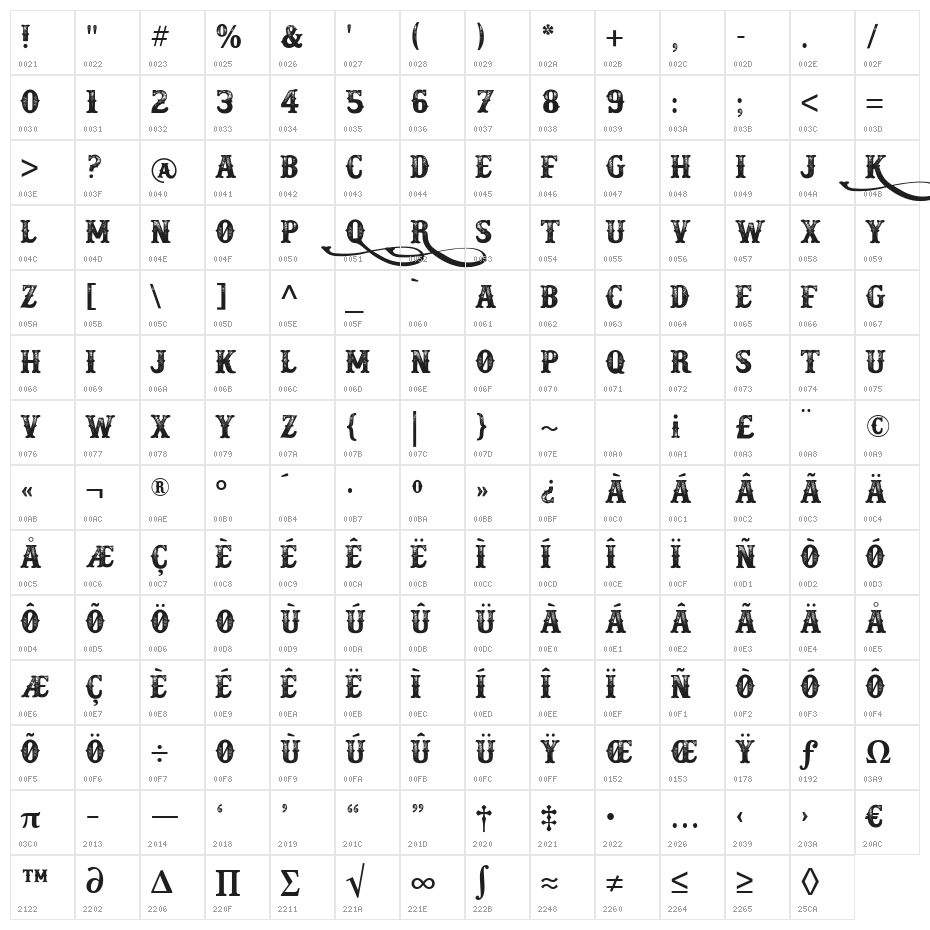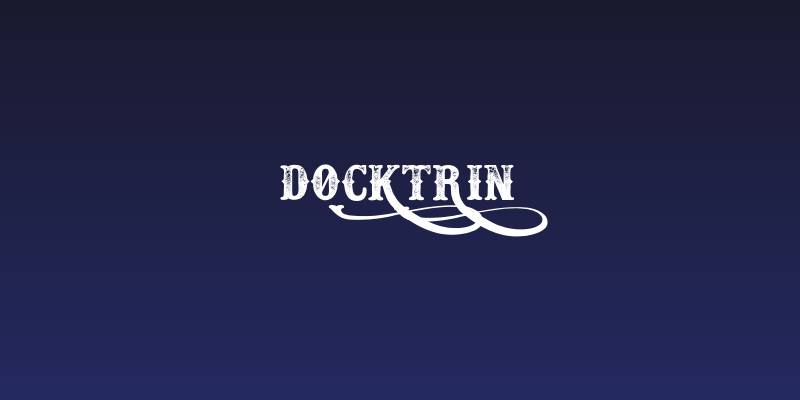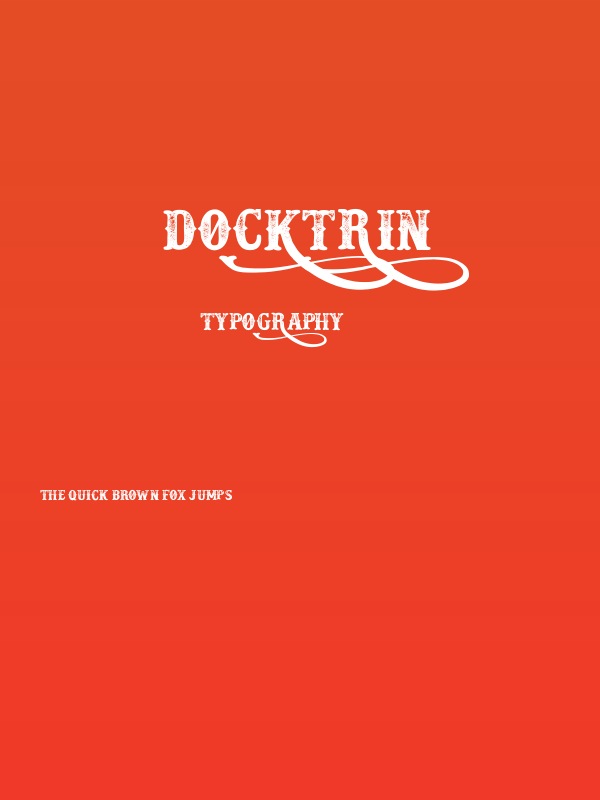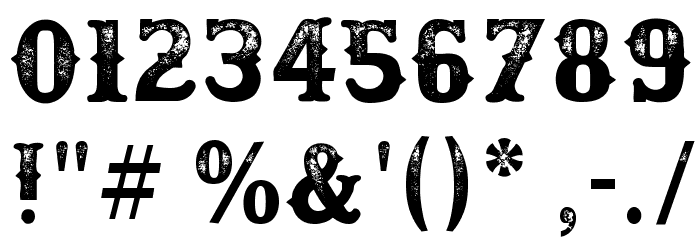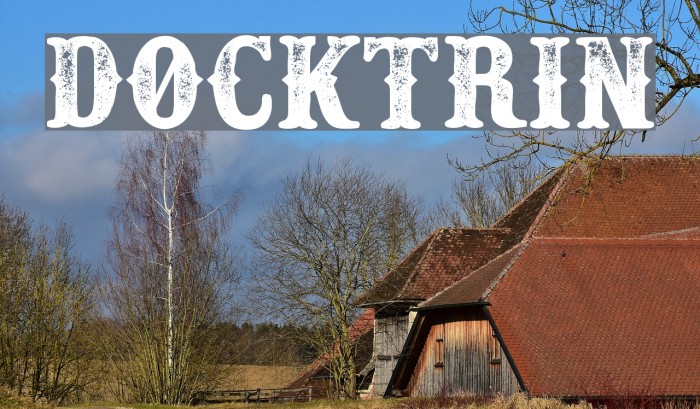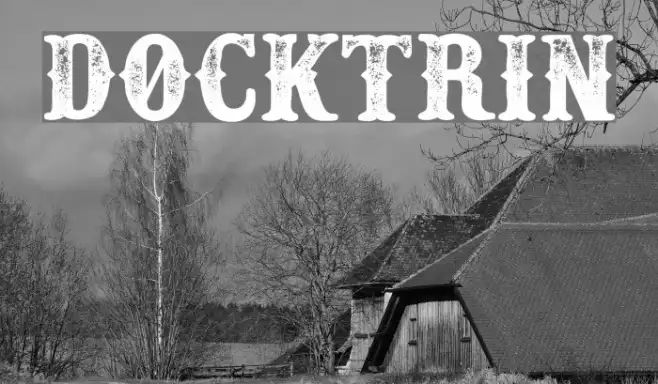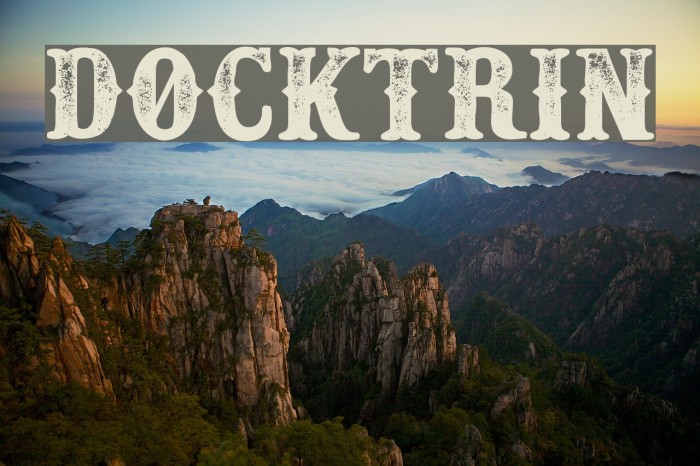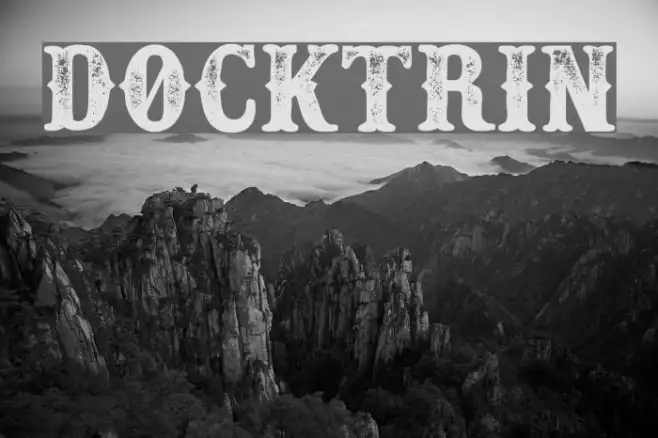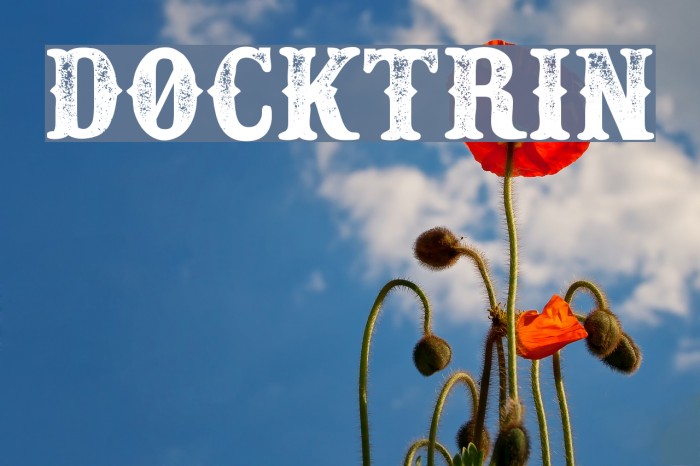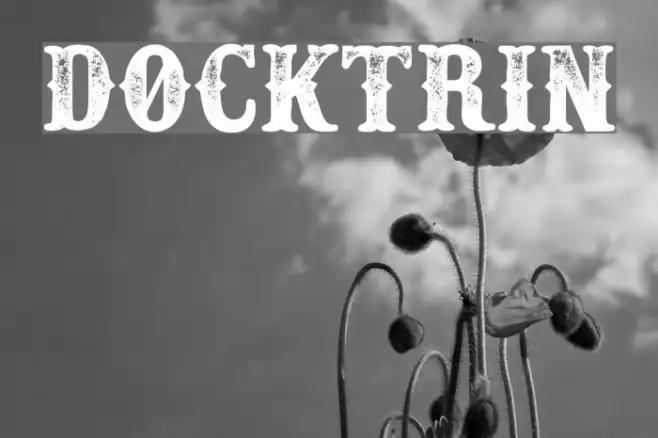
Docktrin Font
Docktrin Description
This font features a bold, distressed style with a vintage flair, characterized by its textured, worn appearance. The uppercase letters are adorned with decorative swashes, adding an elegant touch to the otherwise rugged aesthetic. The numerals and special characters maintain the same distressed look, ensuring consistency across all glyphs. The font's bold weight and high contrast between thick and thin strokes make it highly legible, even at smaller sizes. Its unique style is reminiscent of old western or vintage signage, making it ideal for projects that require a touch of nostalgia or a rustic feel.